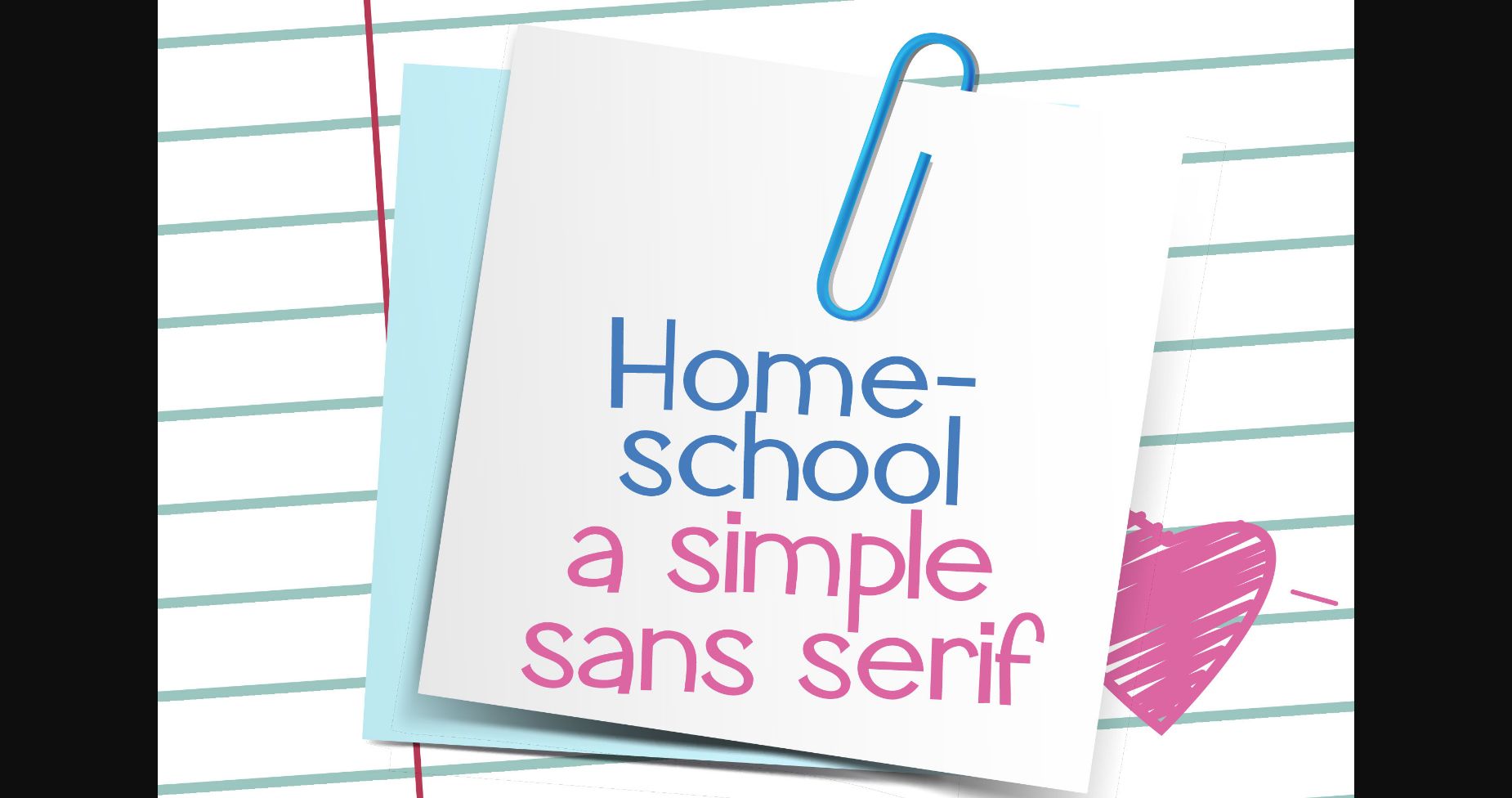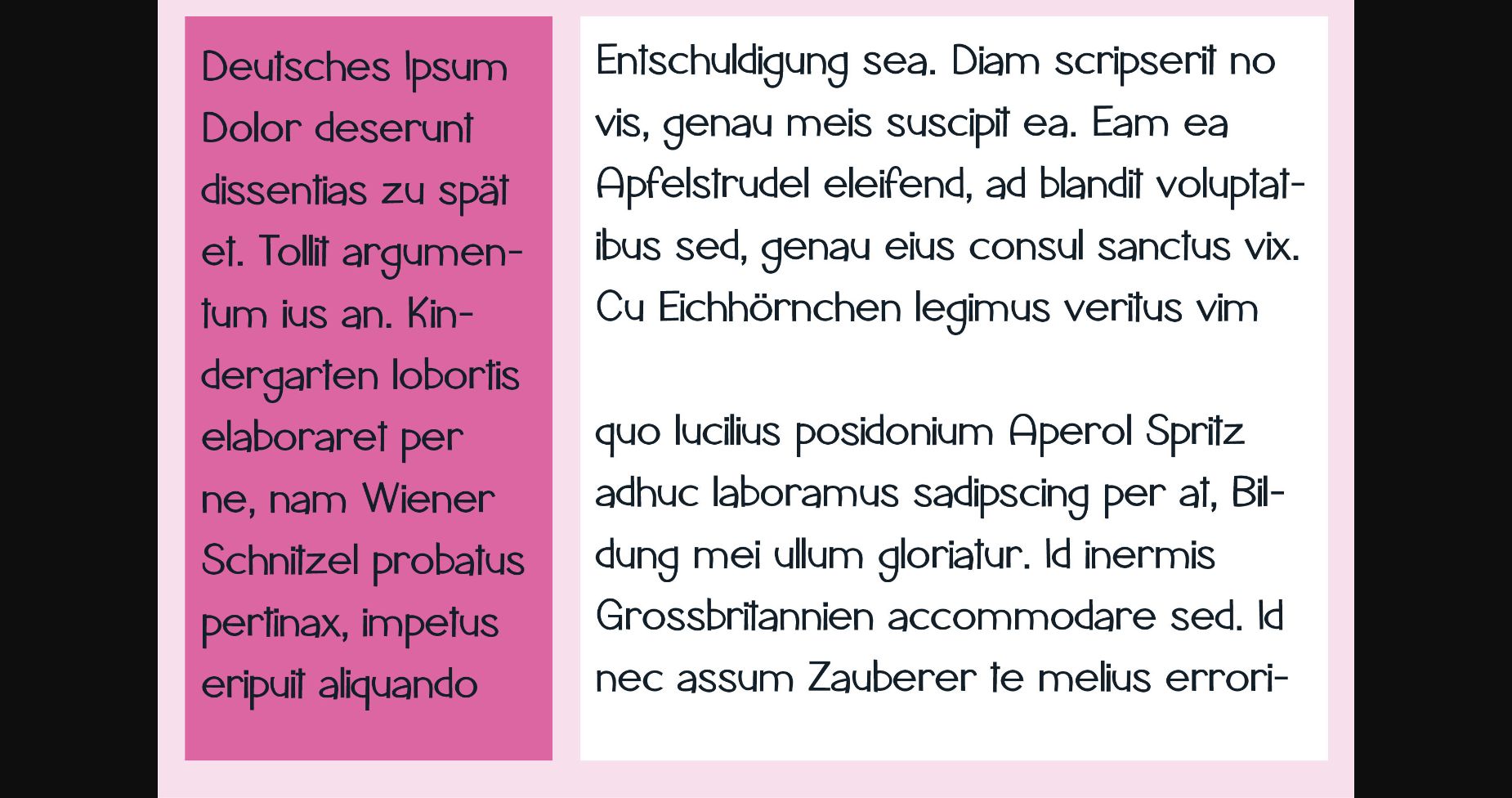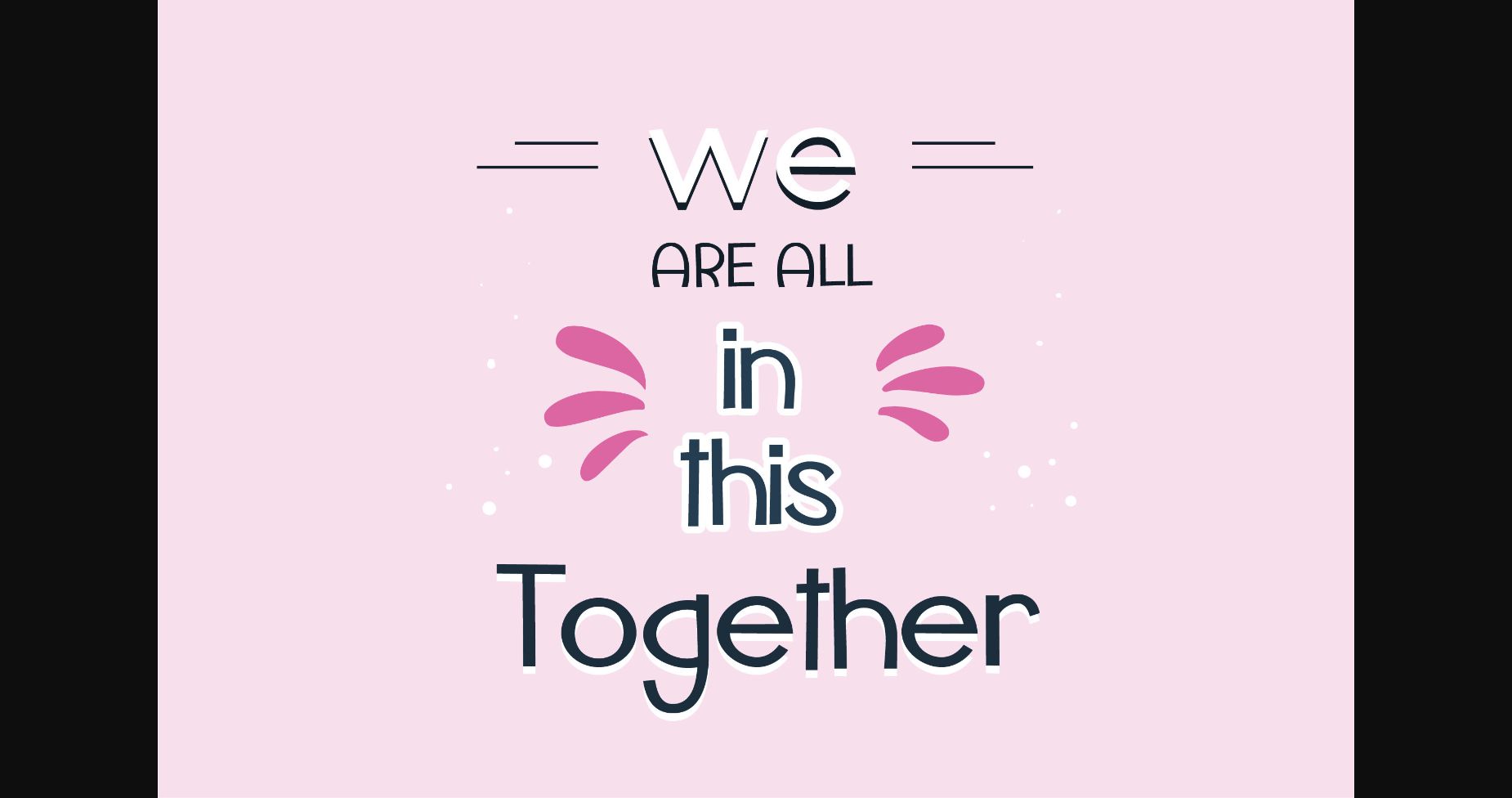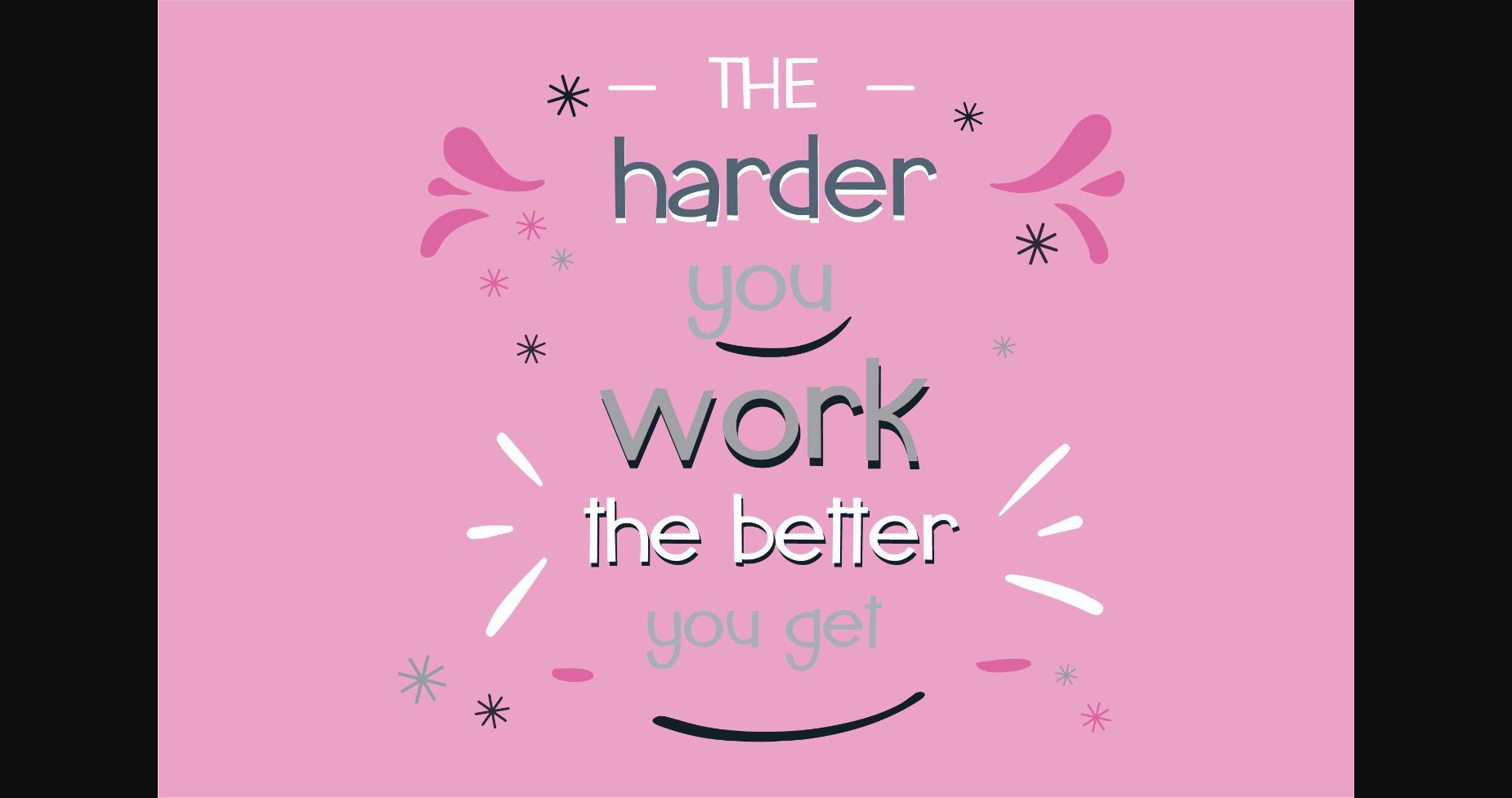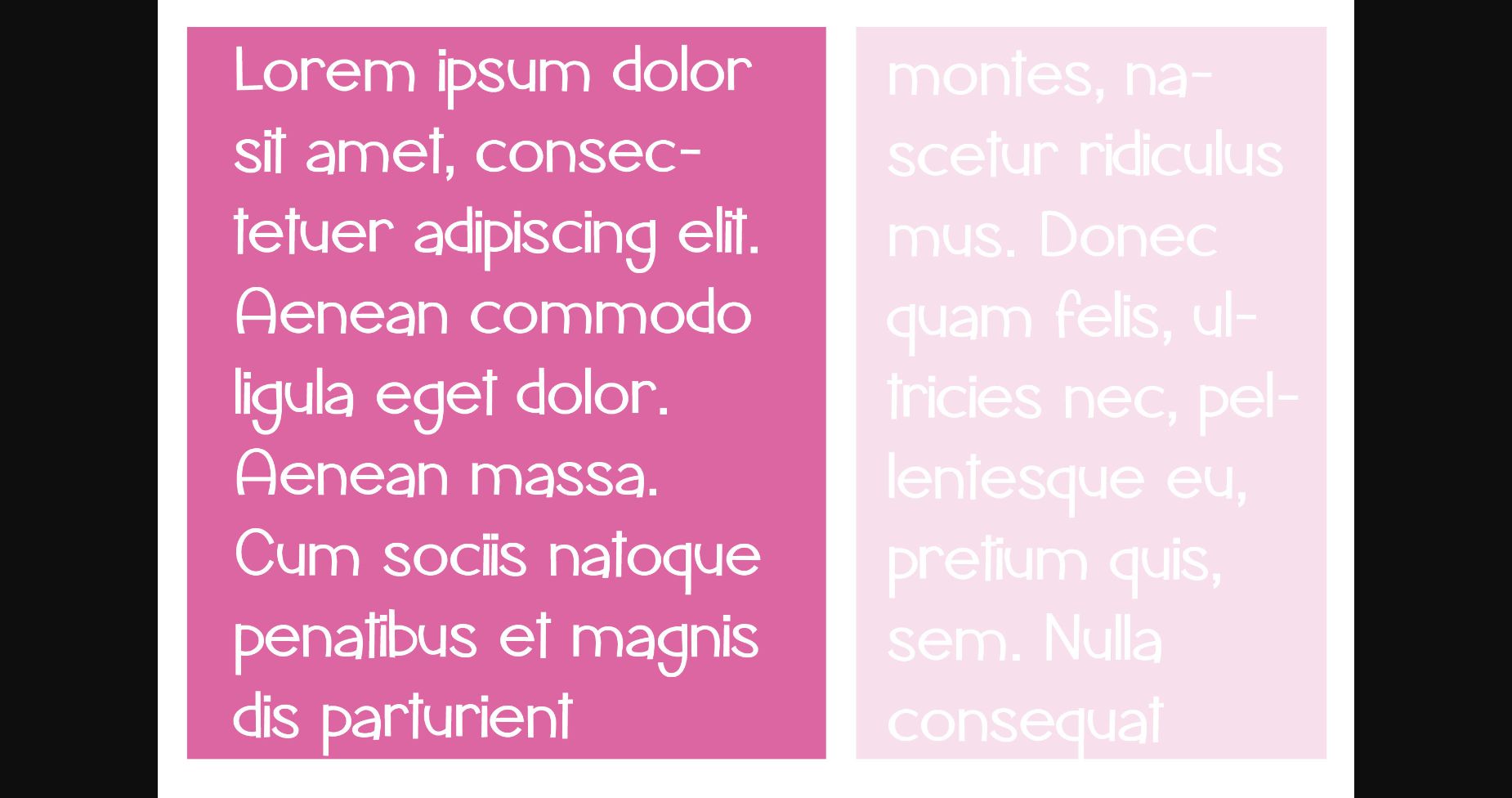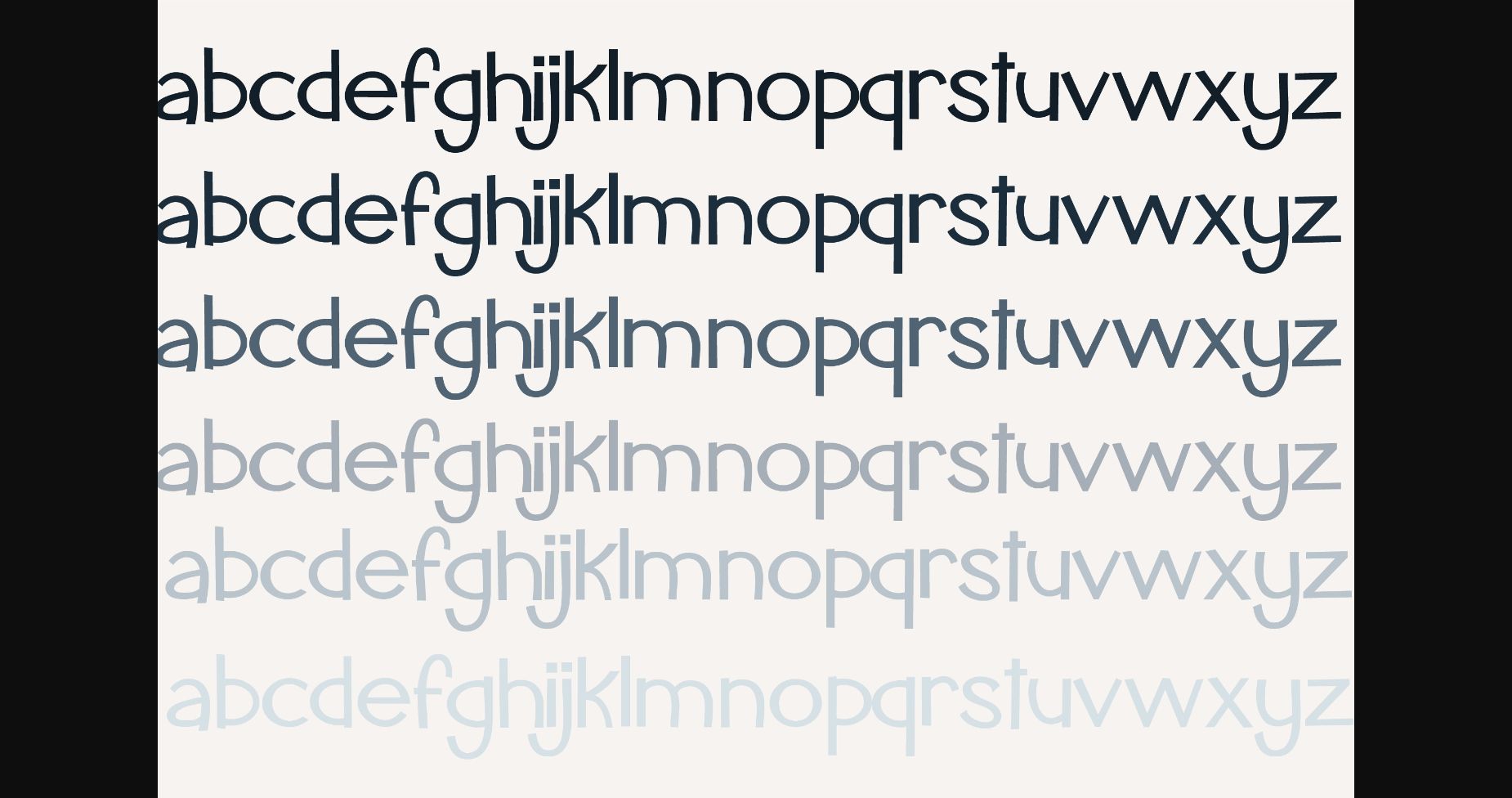
Homeschool Font
About Homeschool Font
Homeschool is a cool, modern and neat sans serif font. Add it confidently to your favorite creations and let yourself be amazed by the outcome generated.